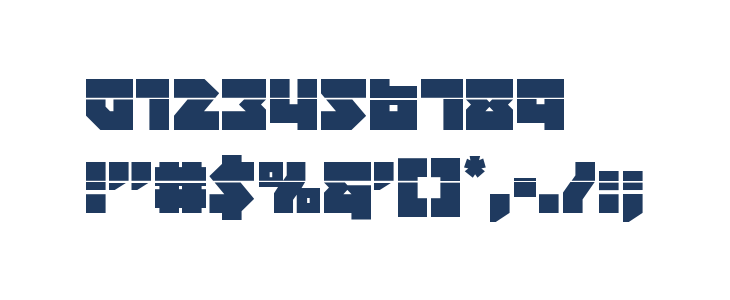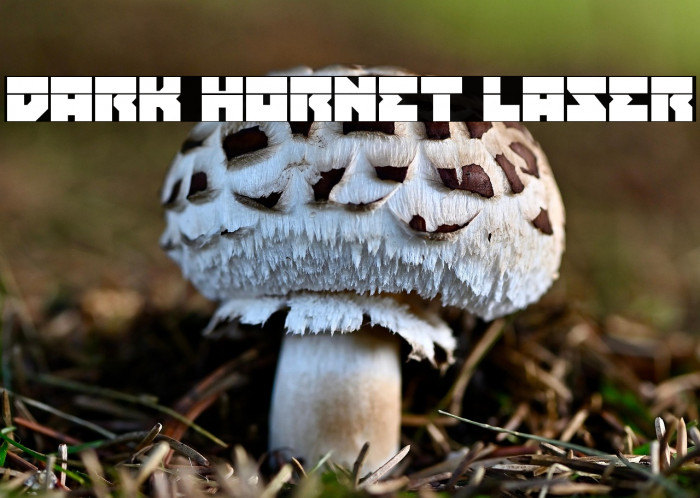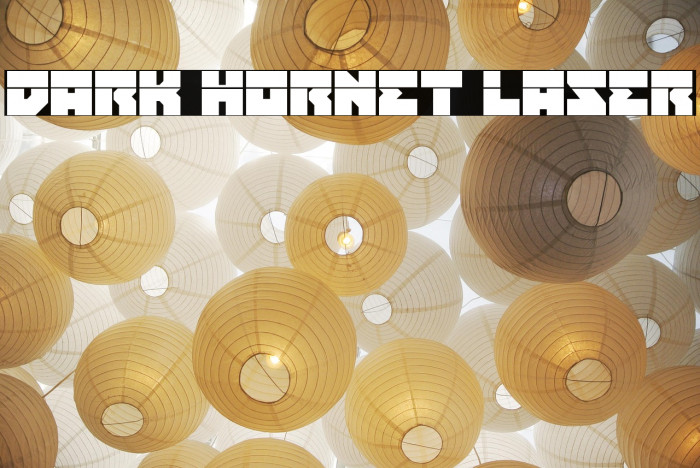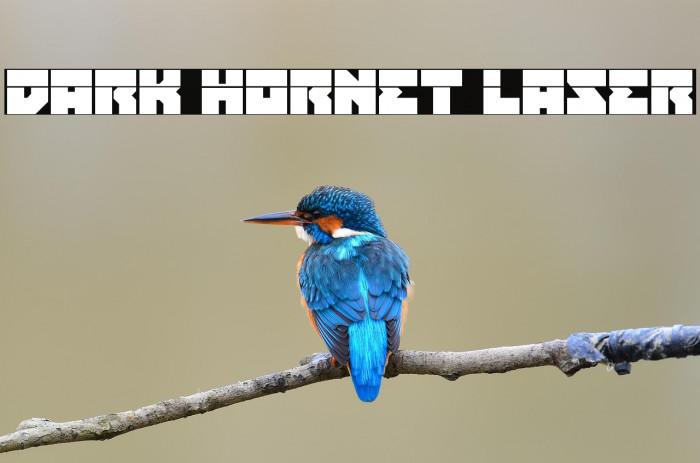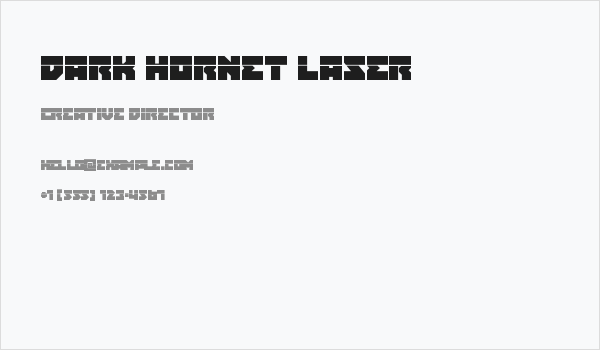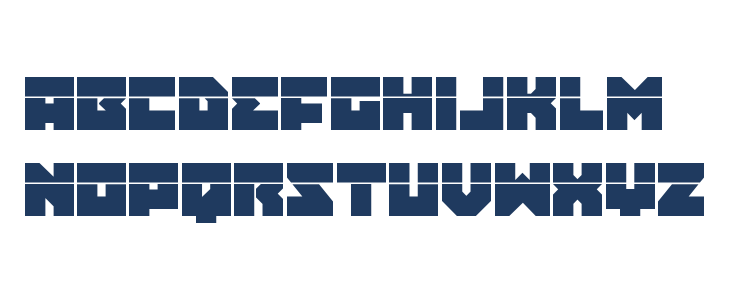
Dark Hornet Laser Font
Dark Hornet Laser Description
This font exhibits a bold, geometric design with a futuristic and industrial feel. The characters are constructed with sharp angles and straight lines, creating a blocky and robust appearance. The uppercase and lowercase letters maintain a consistent style, emphasizing uniformity and strength. The numbers and special characters follow the same design principles, ensuring a cohesive look across all glyphs. This font's unique style makes it stand out, ideal for projects that require a strong visual impact.
| Overall Style | Futuristic, Industrial |
| Proposed Projects | Ideal for sci-fi themed designs, video game titles, posters, and branding that requires a strong, modern look. |